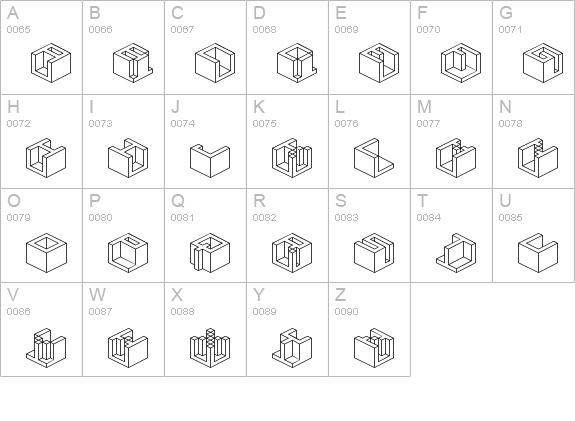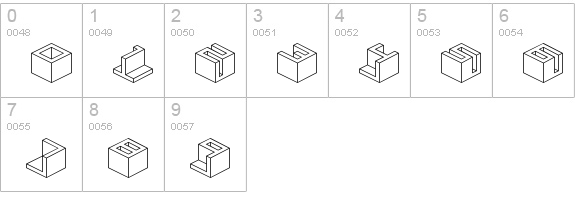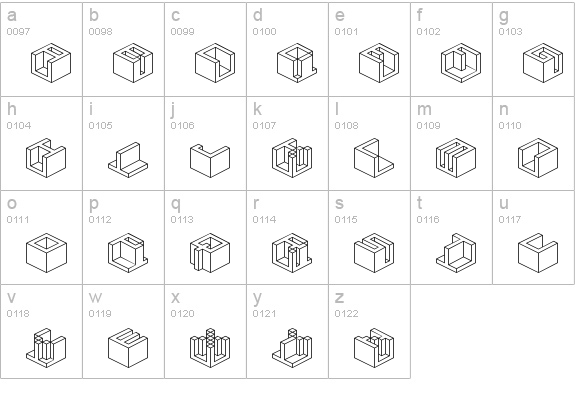
Qbicle 3 BRK Font Details
Qbicle 3 BRK is a stunning and versatile font that adds a touch of elegance and modernity to any design project. This font is perfect for creating eye-catching headlines, logos, posters, and more. With its clean lines and bold letterforms, Qbicle 3 BRK commands attention and brings a sense of sophistication to your work. Whether you're designing for print or digital, this font is sure to make a lasting impression. One of the best aspects of Qbicle 3 BRK is that it is freely available to download at FontsMarket.com. This means that you can enhance your designs with this exceptional font without having to spend a penny. It's a fantastic opportunity to elevate your work without breaking the bank. Qbicle 3 BRK is a truly versatile font that can be used in a wide range of design projects. Its timeless appeal and high level of legibility make it suitable for both professional and personal use. Whether you're creating a website, designing packaging, or working on a branding project, this font is sure to make your designs stand out from the crowd. Don't miss out on the chance to add Qbicle 3 BRK to your font library. Visit FontsMarket.com today and download this exceptional font for free. Elevate your designs and capture attention with the timeless elegance of Qbicle 3 BRK.